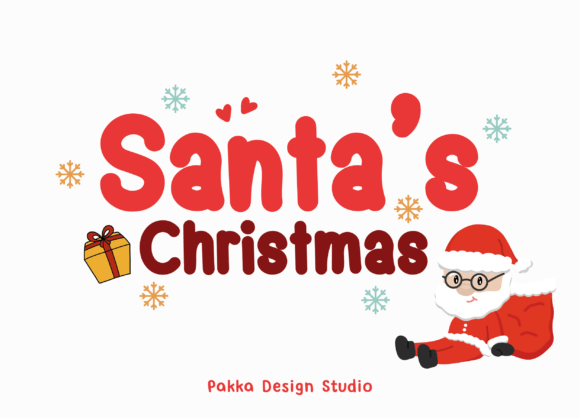
Embrace the charm of Christmas with "Santa's Christmas" font, a whimsical and captivating lettering style that breathes life into your festive designs. Inspired by the joy of holiday magic, this font is a delightful fusion of art and cheer. Imagine the excitement of a child decorating cookies, waiting for Santa's arrival, and witnessing the wonders of Christmas through this enchanting font.
Each letter is a character, filled with holiday cheer and jolly personalities, mimicking the thrill of Christmas morning. Unleash your creativity and infuse your designs with the spirit of festive joy. Let "Santa's Christmas" font transport you to a realm of yuletide wonders, where imagination knows no bounds and Christmas dreams take flight.
Whether you're creating designs for kids, holiday festivities, or projects that resonate with Santa's jolly spirit, this font captures the essence of Christmas like no other. It's a font that sparks nostalgia, warmth, and a sense of belonging.
Add a touch of authenticity to your designs with the cute and doodle-inspired appearance of "Santa's Christmas" font. Its playful nature makes it perfect for projects that evoke the magic of childhood, the joy of giving, and the enchantment of Christmas traditions.
Dive into the world of "Santa's Christmas" font and let your creativity flourish. Experience the magic of Christmas through each letter, and spread the joy of the season with designs that truly capture the spirit of this enchanting time.